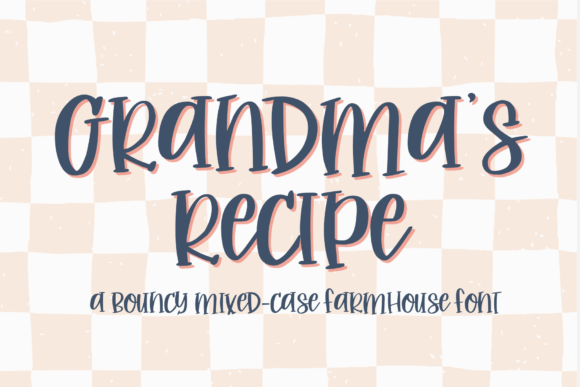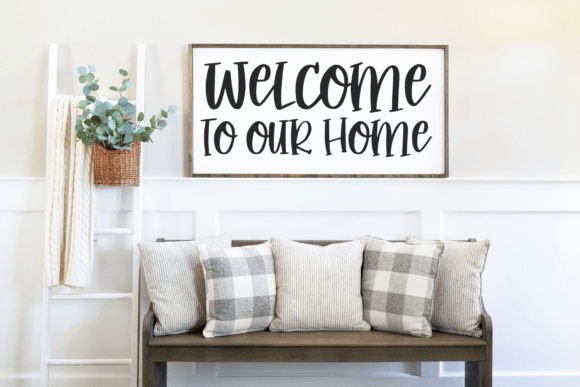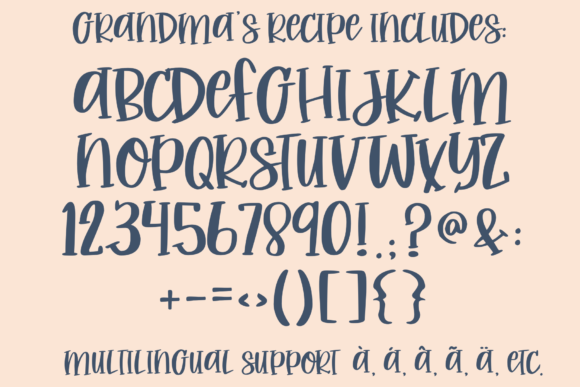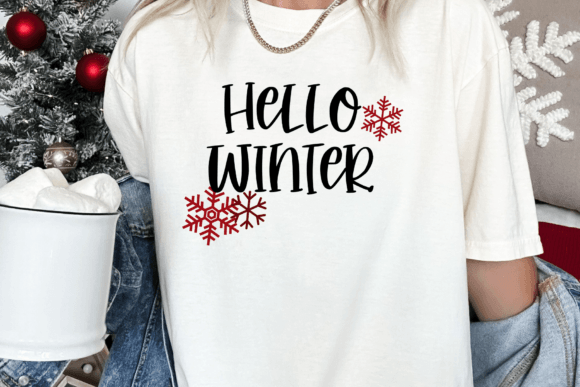
Grandma's Recipe Font
Grandma’s Recipe Font
Grandma’s Recipe is a cute and fun handwritten font. This bouncy farmhouse, handwritten serif font is perfect for fun mugs, farmhouse decor, t-shirt designs, stickers, and any craft or project for that hand-made farmhouse look.